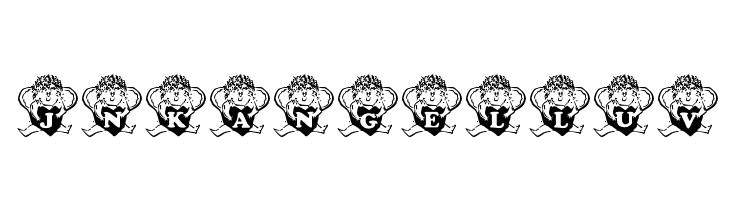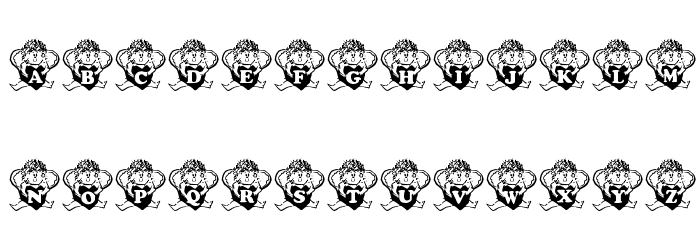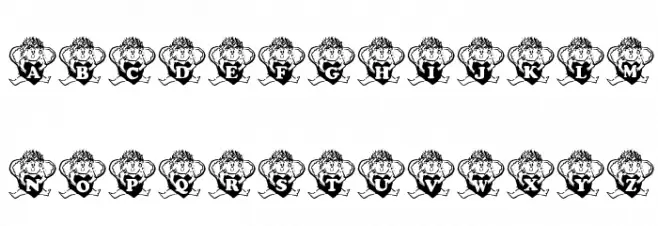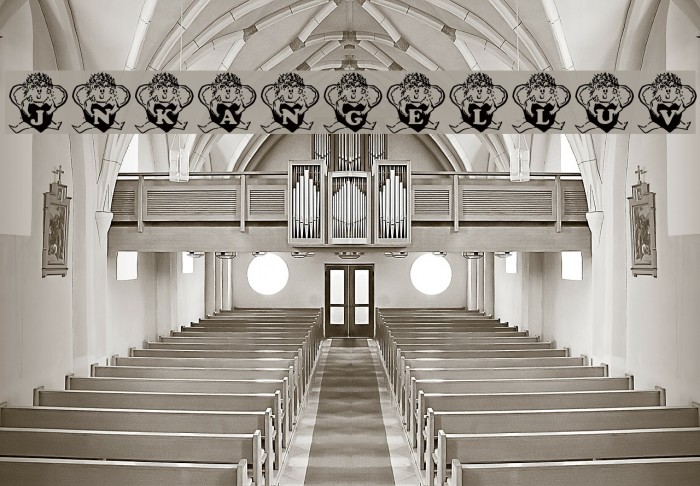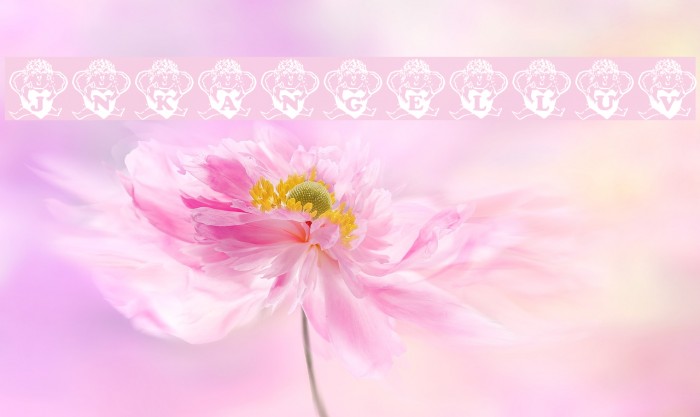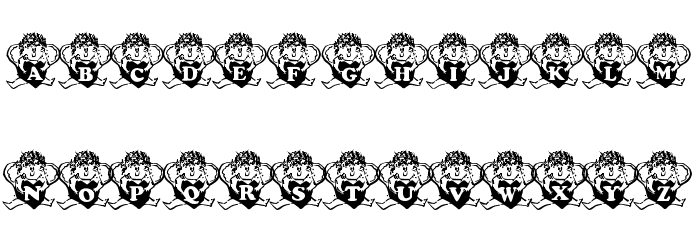
JNKANGELLUV Font
JNKANGELLUV Description
This decorative font features playful, cartoon-like characters integrated into each letter, creating a whimsical and unique appearance. Each letter is encased within a character illustration, adding a layer of visual interest and charm. The font is highly stylized, with bold, thick strokes that make each letter stand out distinctly. The overall design is consistent across both uppercase and lowercase letters, maintaining a cohesive look. The characters are expressive, adding a lively and fun element to the text. This font is ideal for projects that require a touch of humor and creativity.
A whimsical, cartoon-inspired decorative font with bold, expressive characters from Uncategorized fonts.
- Proposed Projects: Ideal for children's books, playful branding, greeting cards, and creative posters.
- Overall Style: Playful, Whimsical
- Use Case: Logos, Posters, Creative Titles